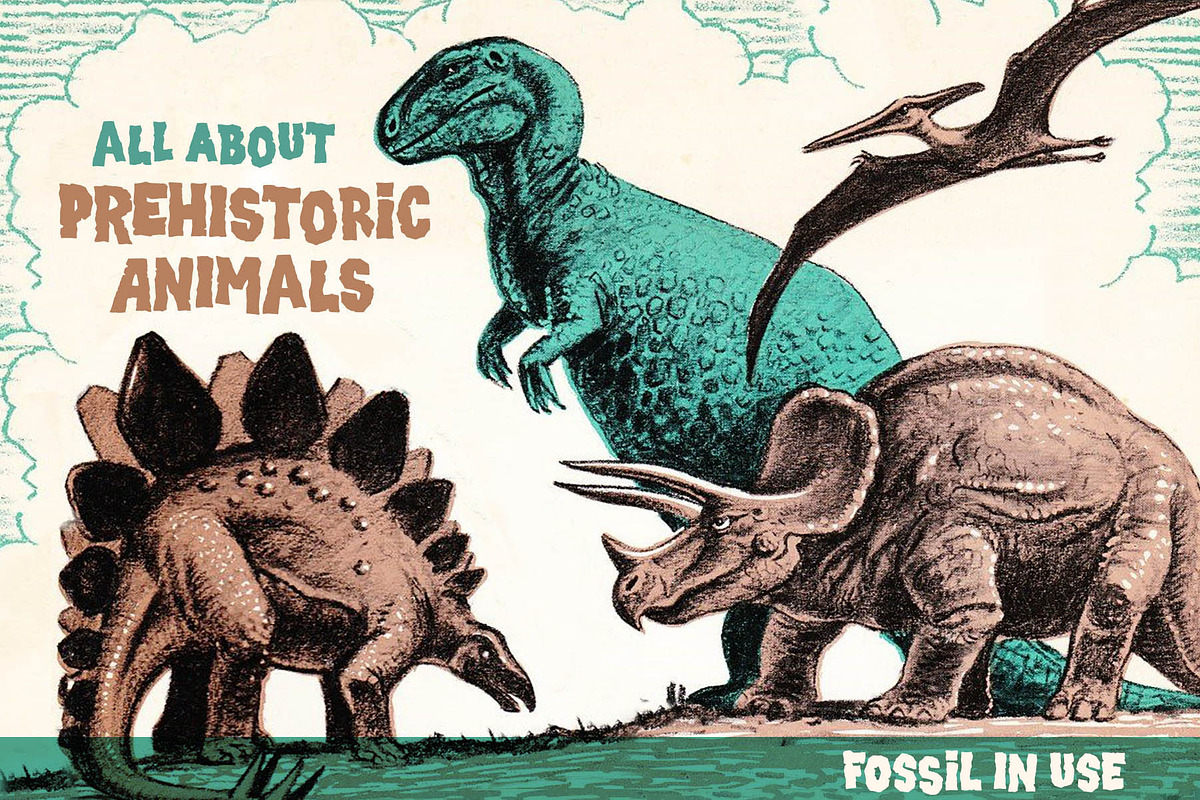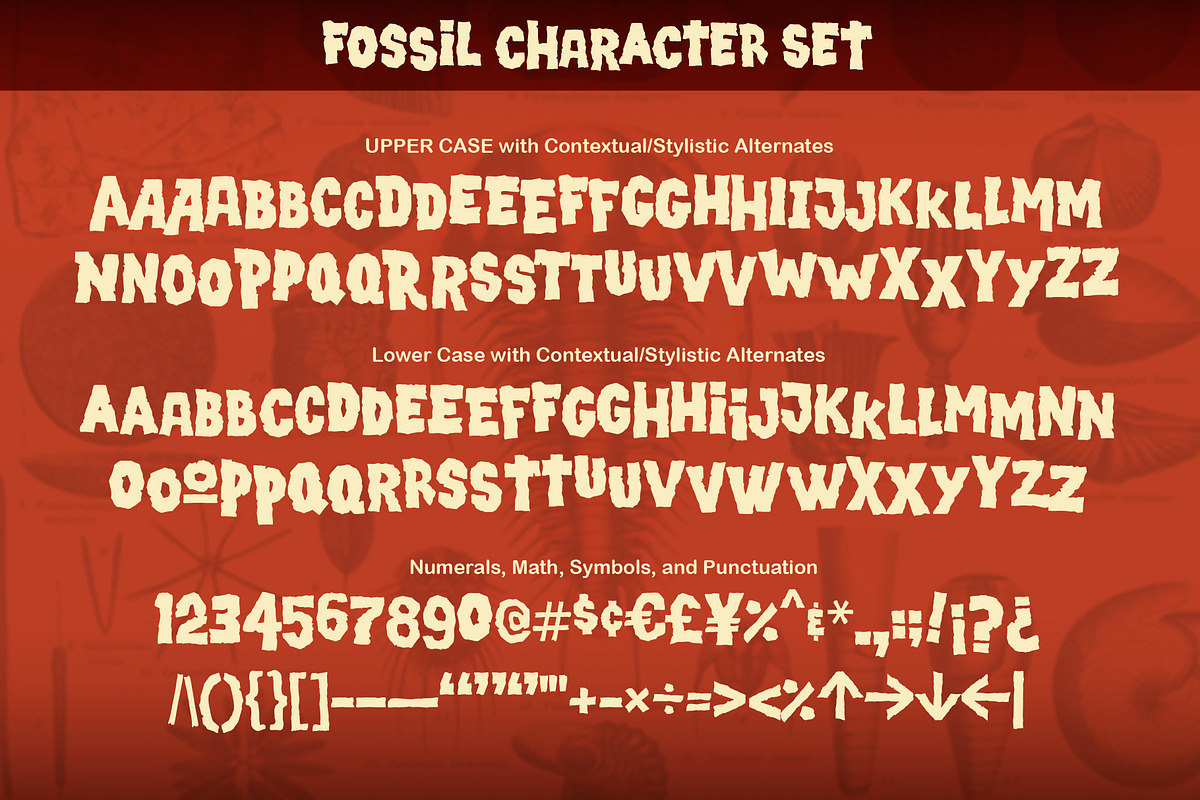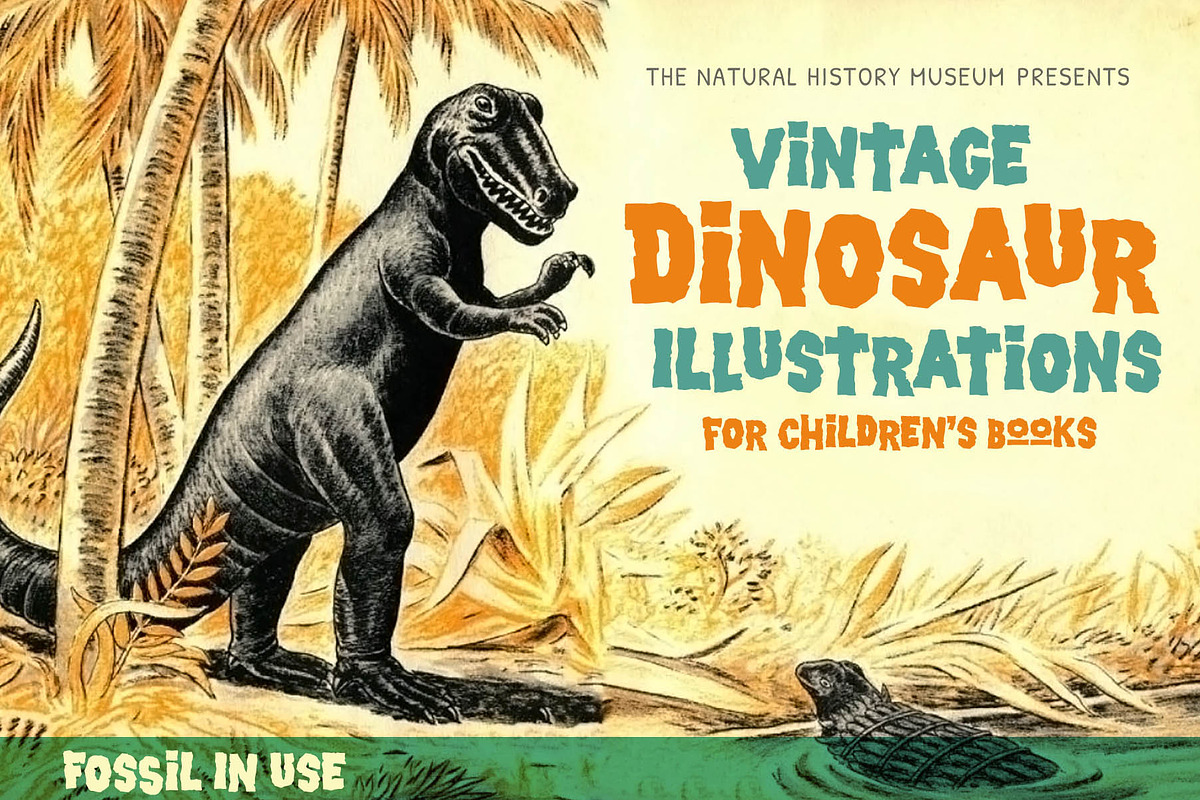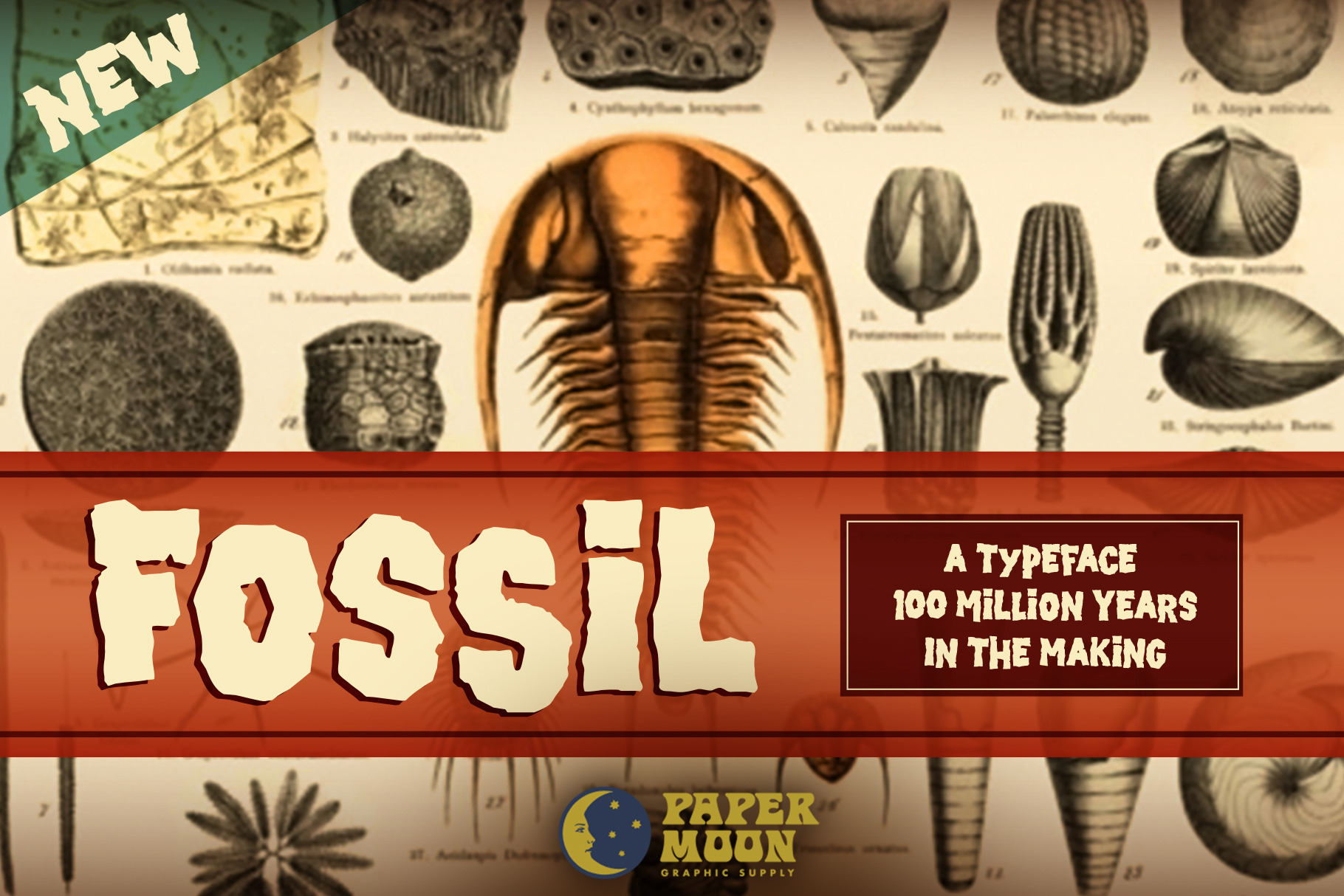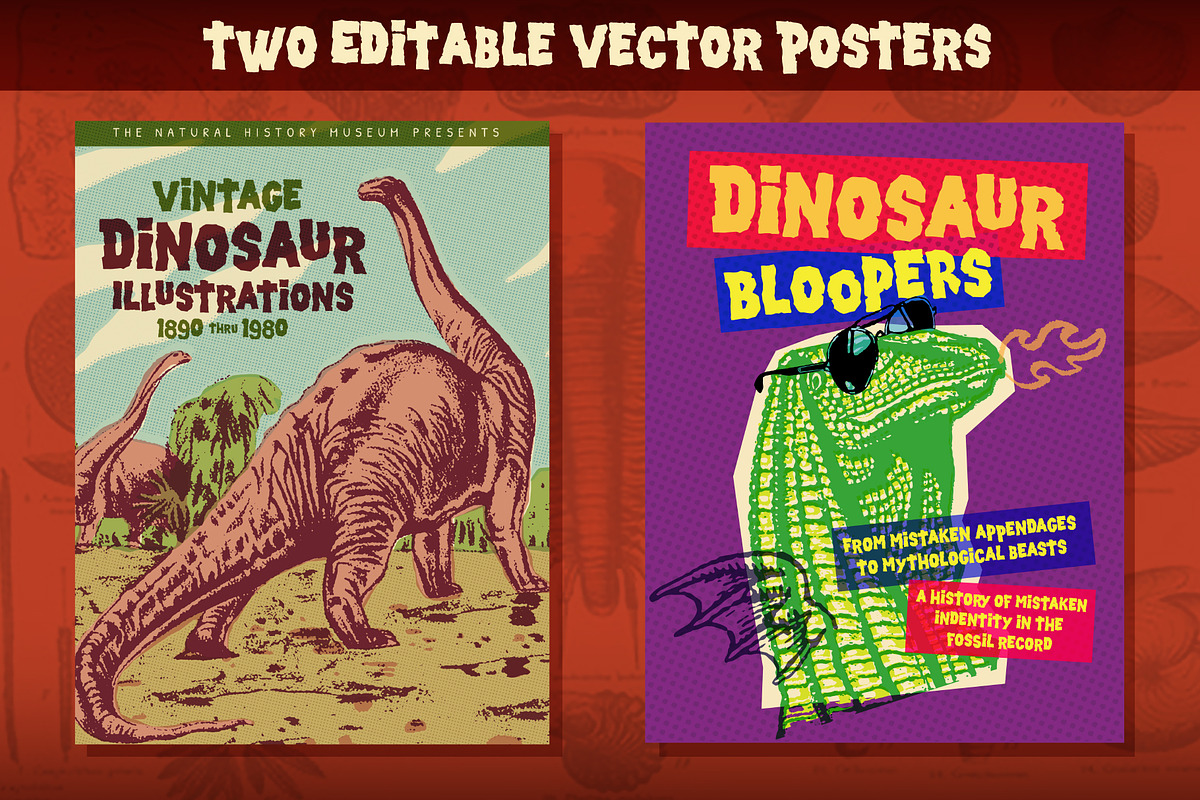
Fossil-Handmade Font & Bonus Posters
A New Font based on retro pop-culture dinosaur books and movie posters
It's alive! Creating a poster for a classic monster or dinosaur movie night? Fossil will bring the event to life! Designing a brochure for a dinosaur exhibit? Fossil will give it the extra bite it needs.
- Includes alphanumerics and multiple stylistic/contextual alternates
- A fun hand-crafted display font based on retro pop-culture dinosaur books and movie posters
- Designed to be friendly and easy to read
Fossil was designed by award-winning illustrator and designer Scott Banks. Until now, this font was part of Scott’s personal collection of design resources. Now you can get this typeface for your personal arsenal.